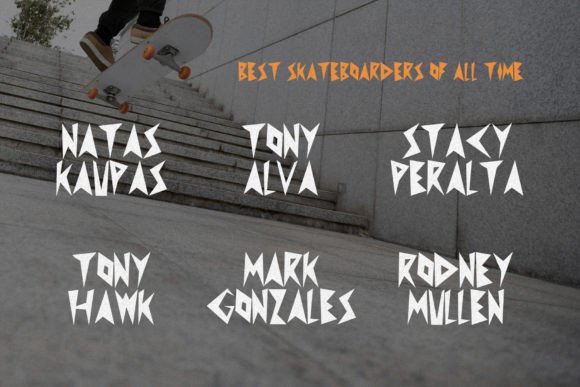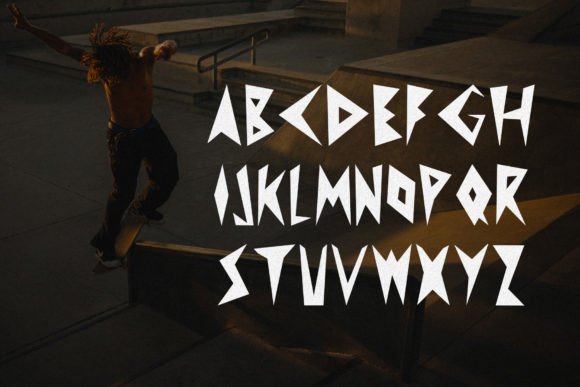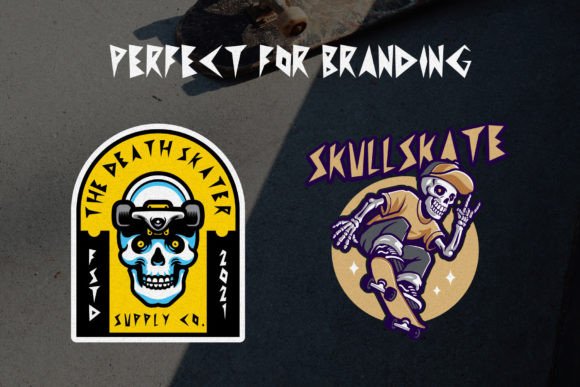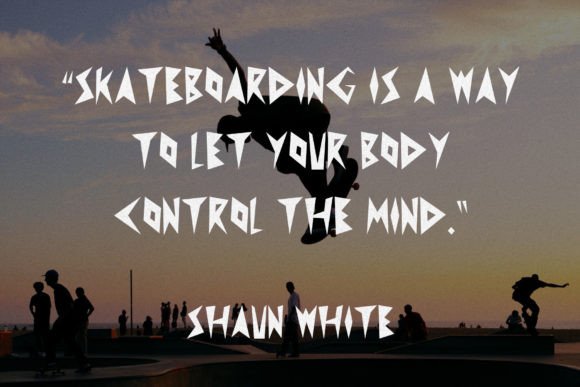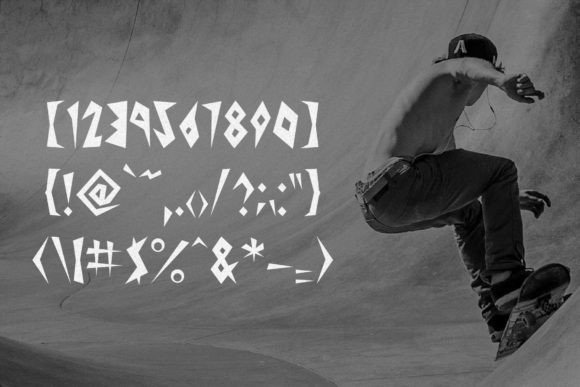
Introducing Boardslide Font: The Ultimate Display Typeface for Rebels and Creatives
Are you tired of using the same old boring fonts for your designs? Look no further! Boardslide Font is here to shake things up with its bold, edgy, and energetic vibe. Inspired by the punk and skateboarding culture, this rad all-caps display typeface is perfect for creating eye-catching logos, headlines, social media posts, t-shirts, YouTube graphics, event posters, and much more.
The Birth of Boardslide Font
Boardslide Font was born out of a passion for the punk and skateboarding culture. The creators wanted to capture the essence of the rebellious and free-spirited nature of these subcultures and put it into a font that would inspire designers and crafters to create something truly unique. The result is a sharp and energetic typeface that exudes confidence and attitude.
What Makes Boardslide Font So Special?
Boardslide Font is not just another font – it’s an experience. Its bold and edgy design makes it perfect for creating designs that demand attention. Here are just a few reasons why Boardslide Font stands out from the rest:
• All-caps display typeface: Boardslide Font is designed to make a statement. Its all-caps design ensures that your message is loud and clear.
• Punk and skateboarding inspiration: The font’s inspiration from punk and skateboarding culture gives it a unique and rebellious vibe that’s hard to find elsewhere.
• Sharp and energetic design: The font’s sharp lines and energetic feel make it perfect for creating designs that need to pop.
• Versatile: Boardslide Font can be used for a wide range of design projects, from logos and headlines to social media posts and event posters.
Boardslide Font is a dream come true for designers and crafters who want to add a touch of rebellion and creativity to their work. Whether you’re designing a logo for a skateboard company, creating a poster for a music festival, or simply looking for a font to spice up your social media posts, Boardslide Font has got you covered.
With Boardslide Font, the possibilities are endless. Here are just a few ideas to get you started:
• Logos: Create a bold and eye-catching logo for your skateboard company, clothing brand, or music label.
• Headlines: Use Boardslide Font to create attention-grabbing headlines for your blog, magazine, or newspaper.
• Social media posts: Add a touch of rebellion to your social media posts and stand out from the crowd.
• T-shirts and apparel: Create bold and eye-catching designs for t-shirts, hoodies, and other apparel.
• YouTube graphics: Use Boardslide Font to create eye-catching graphics for your YouTube videos.
• Event posters: Create bold and attention-grabbing posters for music festivals, concerts, and other events.
Get Ready to Unleash Your Creativity
If you’re looking for a font that will help you unleash your creativity and add a touch of rebellion to your designs, look no further than Boardslide Font. With its bold and edgy design, sharp lines, and energetic feel, this font is perfect for designers and crafters who want to create something truly unique.